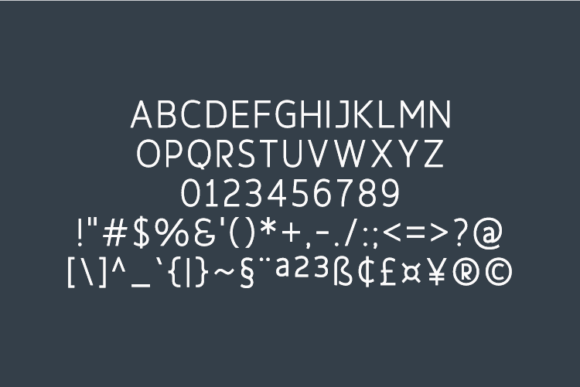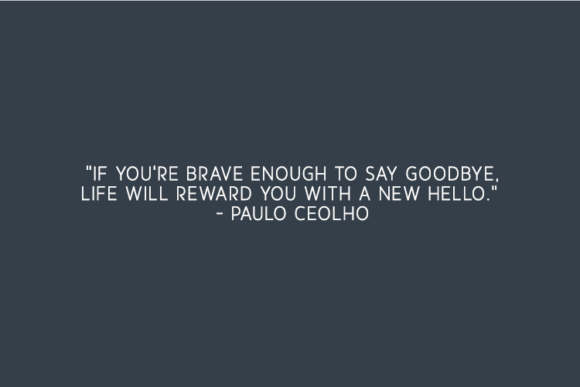
Introduction to Prosperous Font
Prosperous is a stunning sans serif to complement every project you’re working on.
Use to create beautiful headings, gorgeous invitations, stunning logos, and so much more Perfect for displays, headers, invitations, save the dates, weddings, and so much more.
Prosperous Font offers exceptional quality and versatility, making it a valuable addition to your design toolkit. Whether you’re creating for personal projects or commercial use, Prosperous Font delivers professional results.